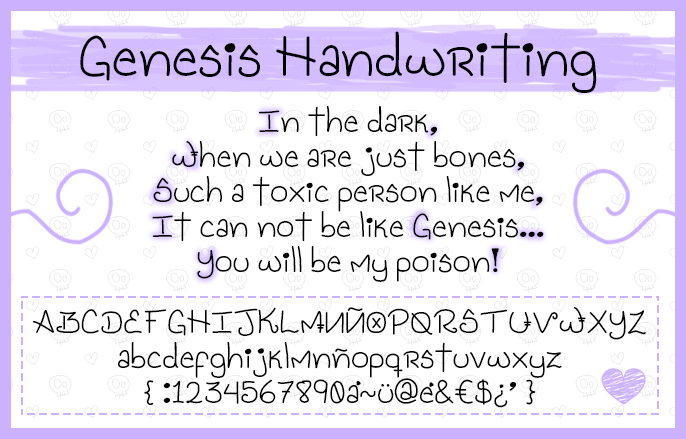
Preview and download Genesis Handwriting Font. Created by Génesis Toxical in Script Handwritten styles with 100% Free license.
Font name: | Genesis Handwriting |
Author: | Génesis Toxical |
Note by Génesis Toxical | |